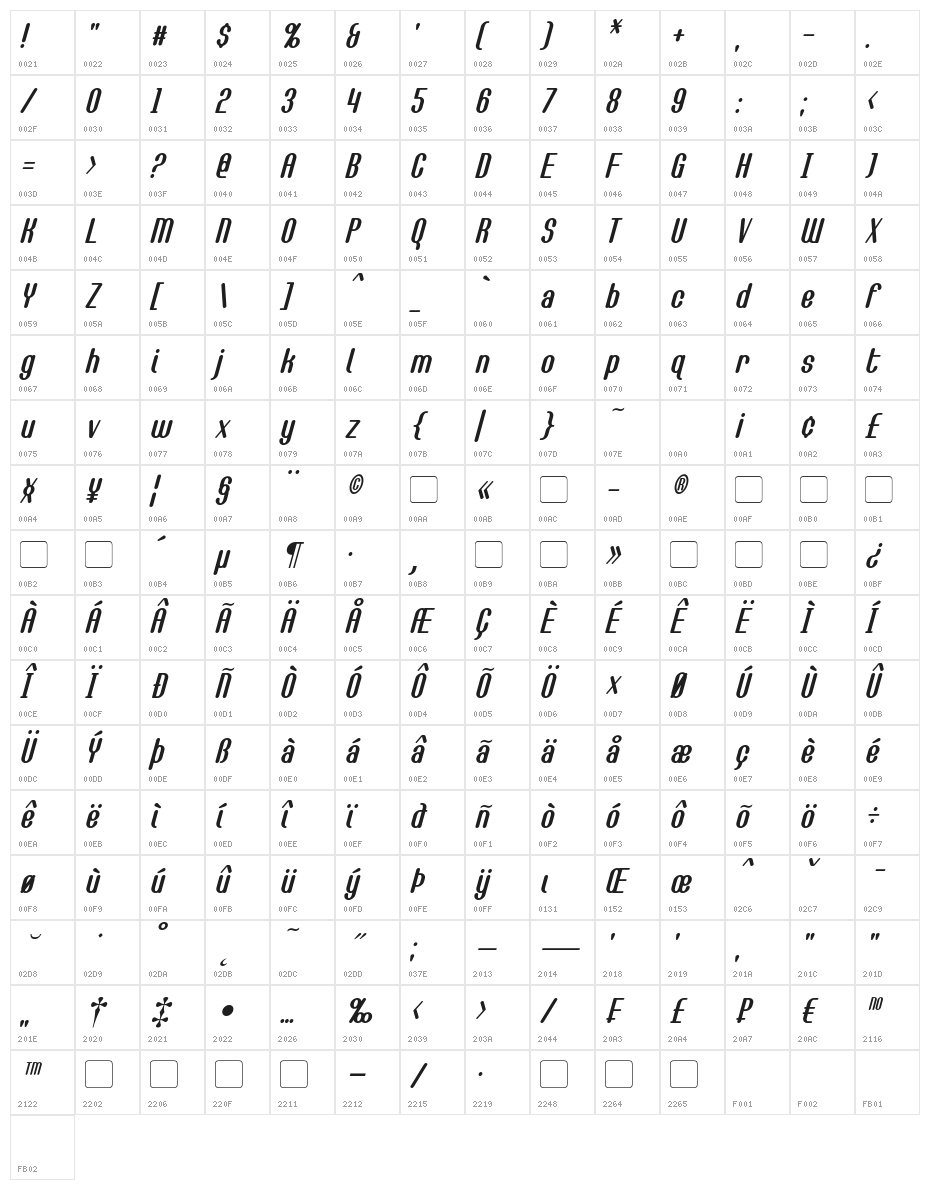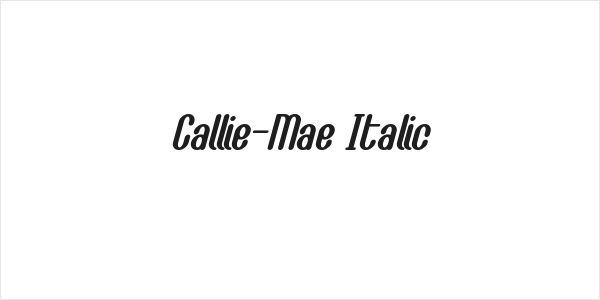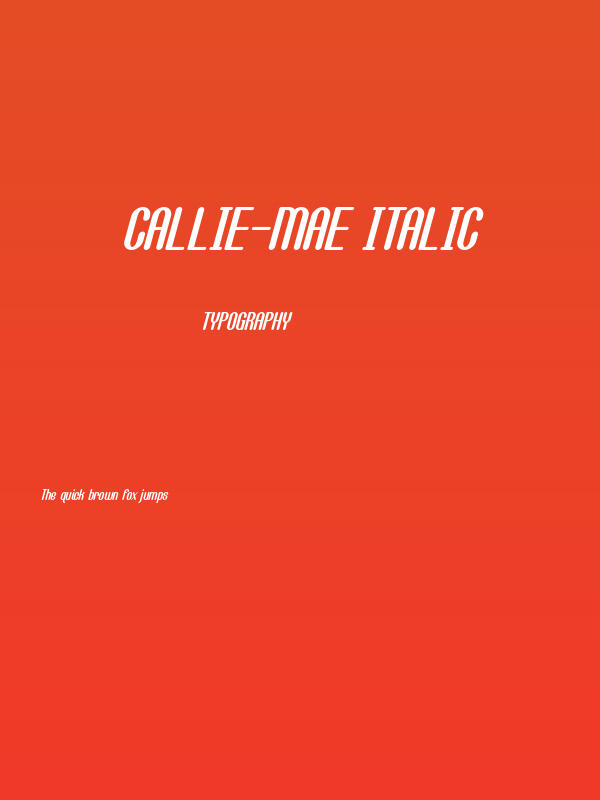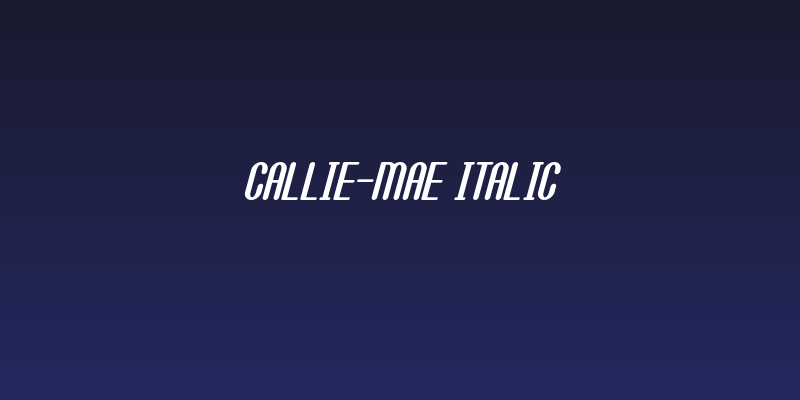
Callie-Mae Italic Font
Callie-Mae Italic Description
This font features a dynamic and flowing italic style, characterized by its smooth, rounded edges and consistent stroke width. The letters are slightly slanted, giving a sense of motion and elegance. The uppercase and lowercase characters maintain a uniform height, contributing to a cohesive appearance. The numerals are distinct and easy to read, while the special characters are well-integrated, matching the overall aesthetic. This font's design is both modern and approachable, making it versatile for various applications.